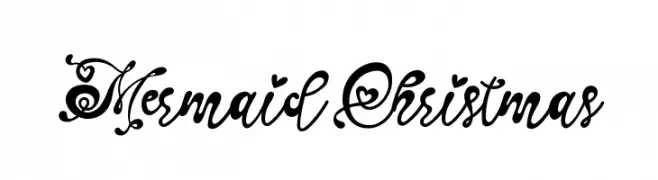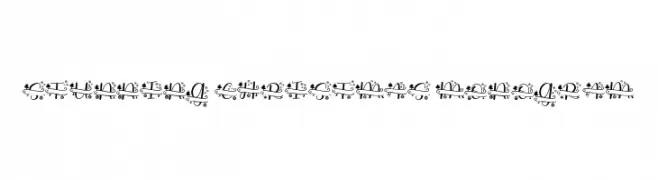
A whimsical, festive script font with decorative elements like stars and hearts.
A festive, decorative font with holiday-themed embellishments.
A whimsical and elegant script font with flowing, interconnected letters.
A whimsical, festive font with decorative swirls and a script-like style.
A festive and elegant cursive font with decorative swirls, perfect for holiday themes.
A festive, cursive font with elegant loops and swirls, perfect for holiday themes.